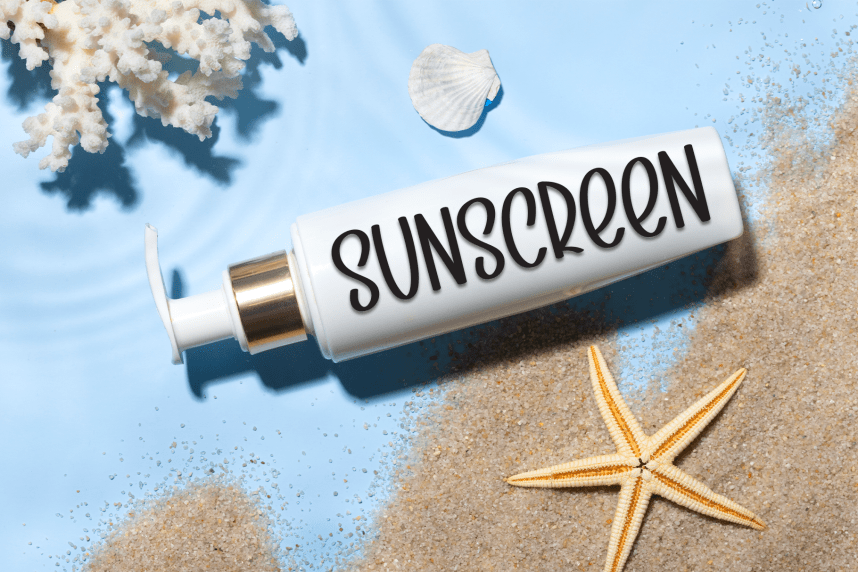
Bunny Easter Handwritten Font
Bunny Easter Handwritten Font is a sweet and friendly handwritten display font. Cute and fun, this font is ideal for writing wedding invitations, cards, or any other design that might need a playful touch!